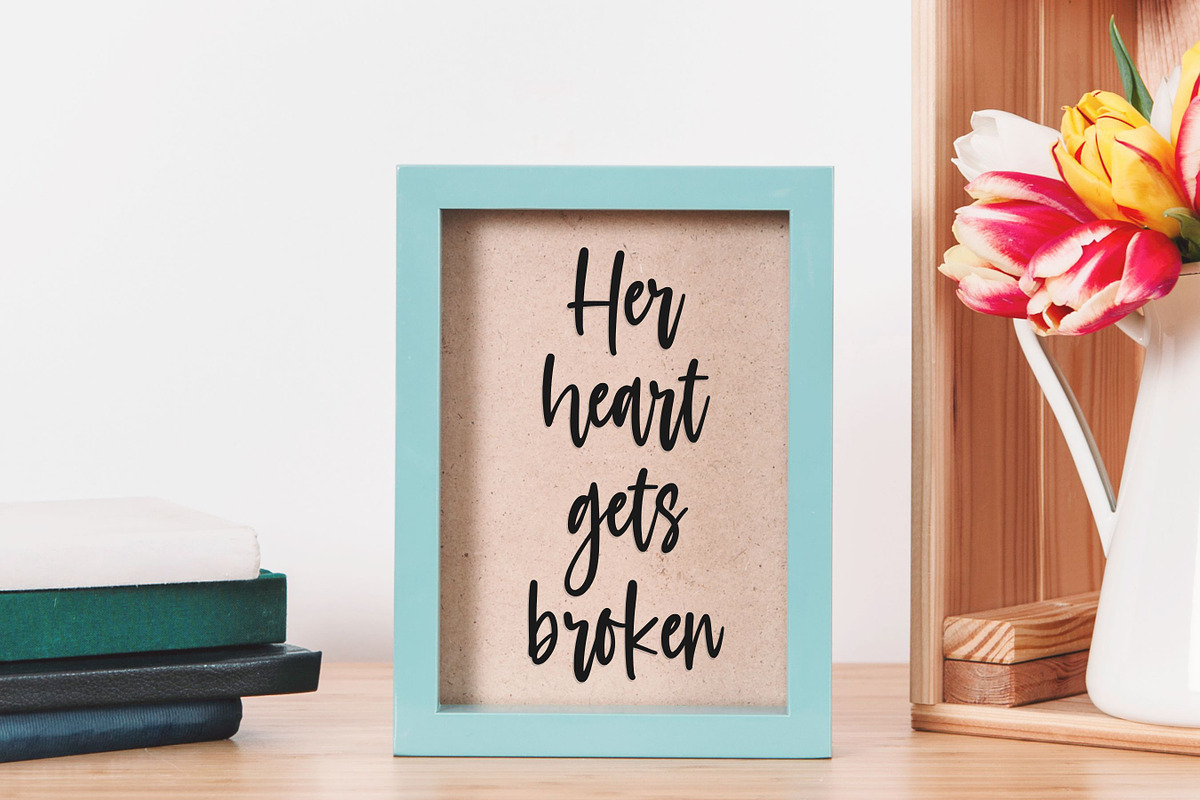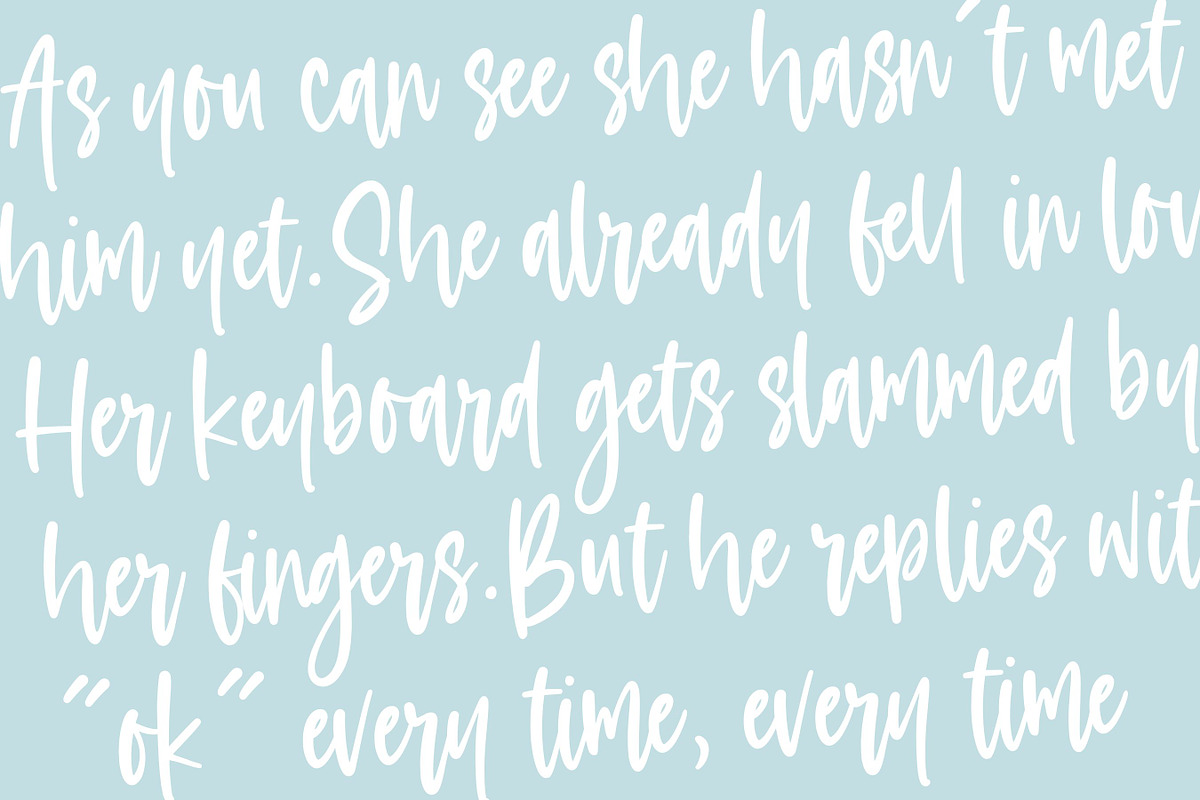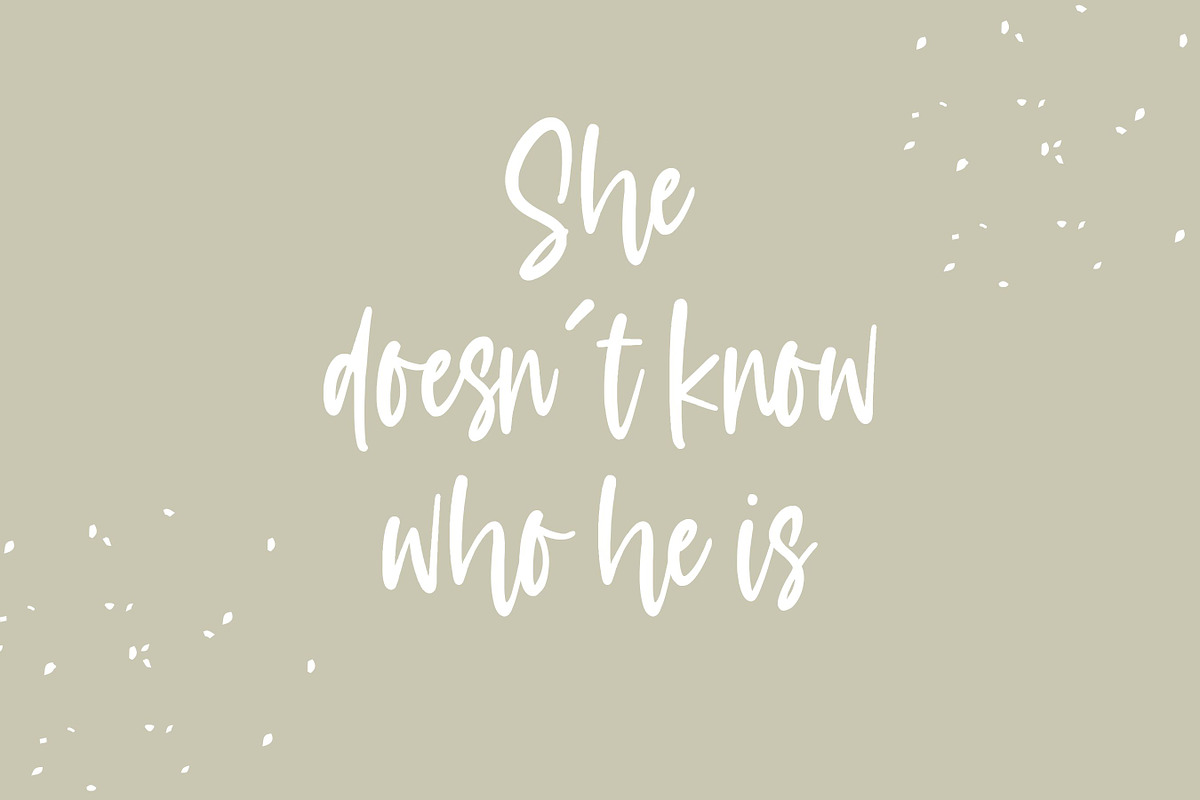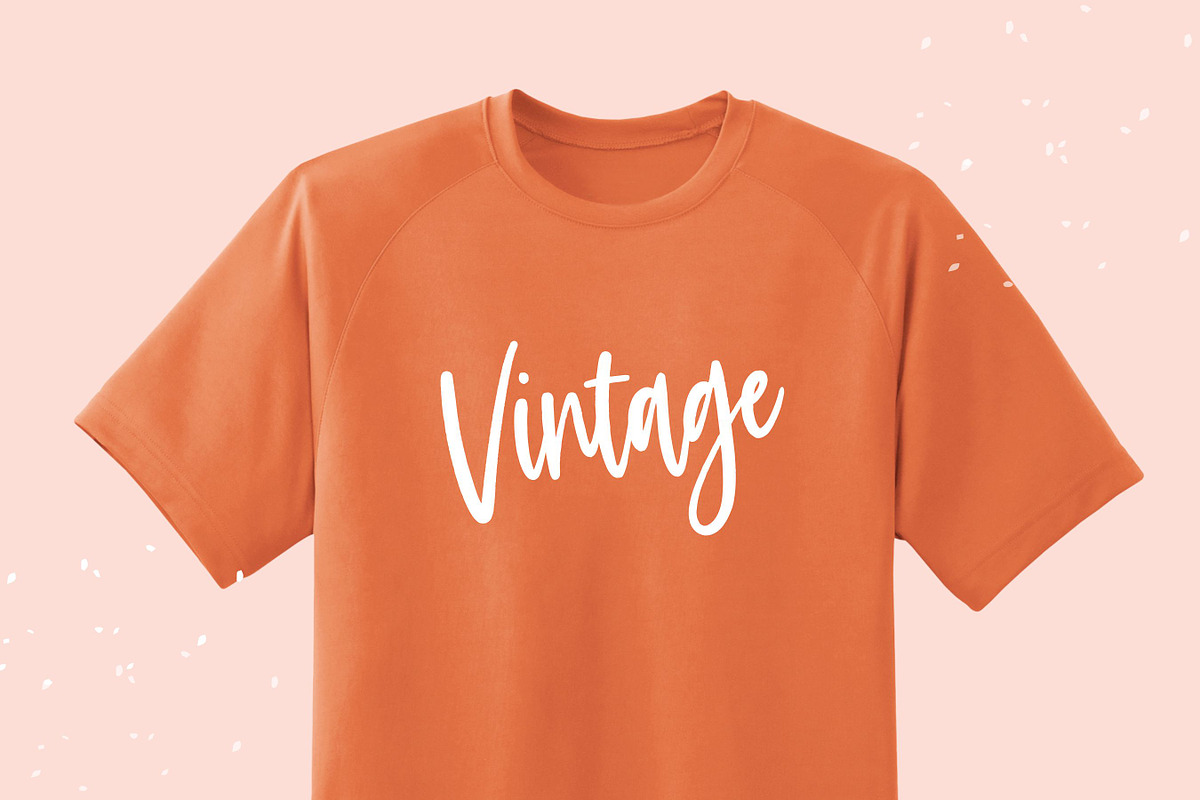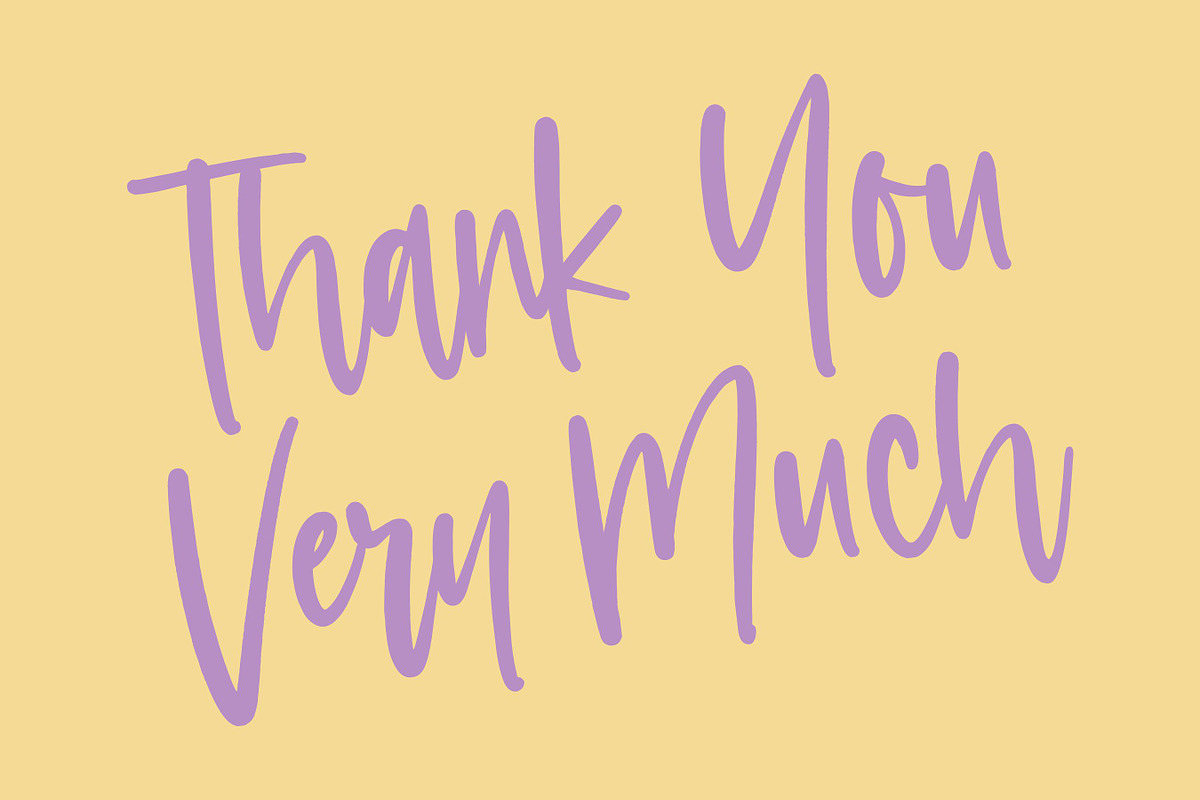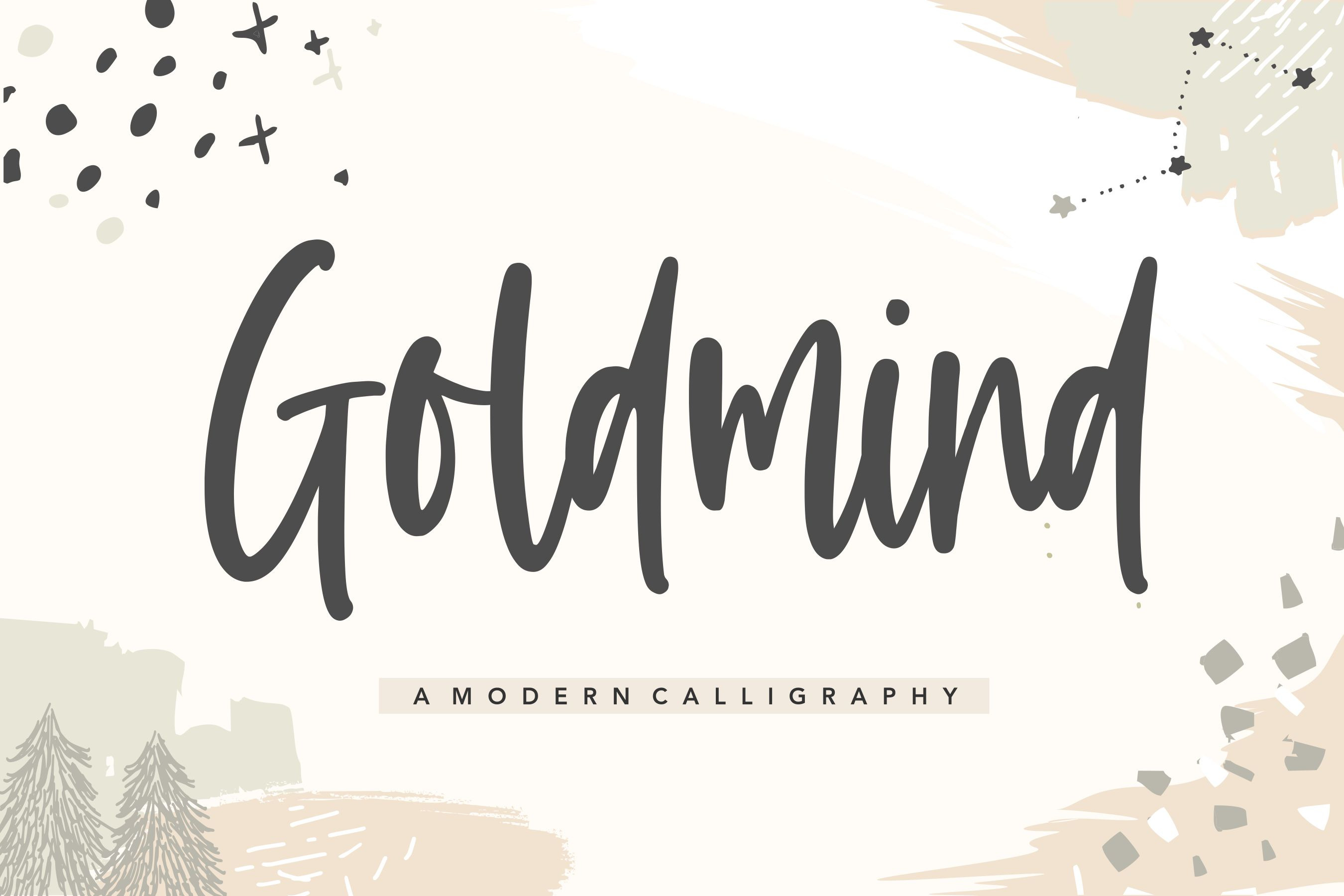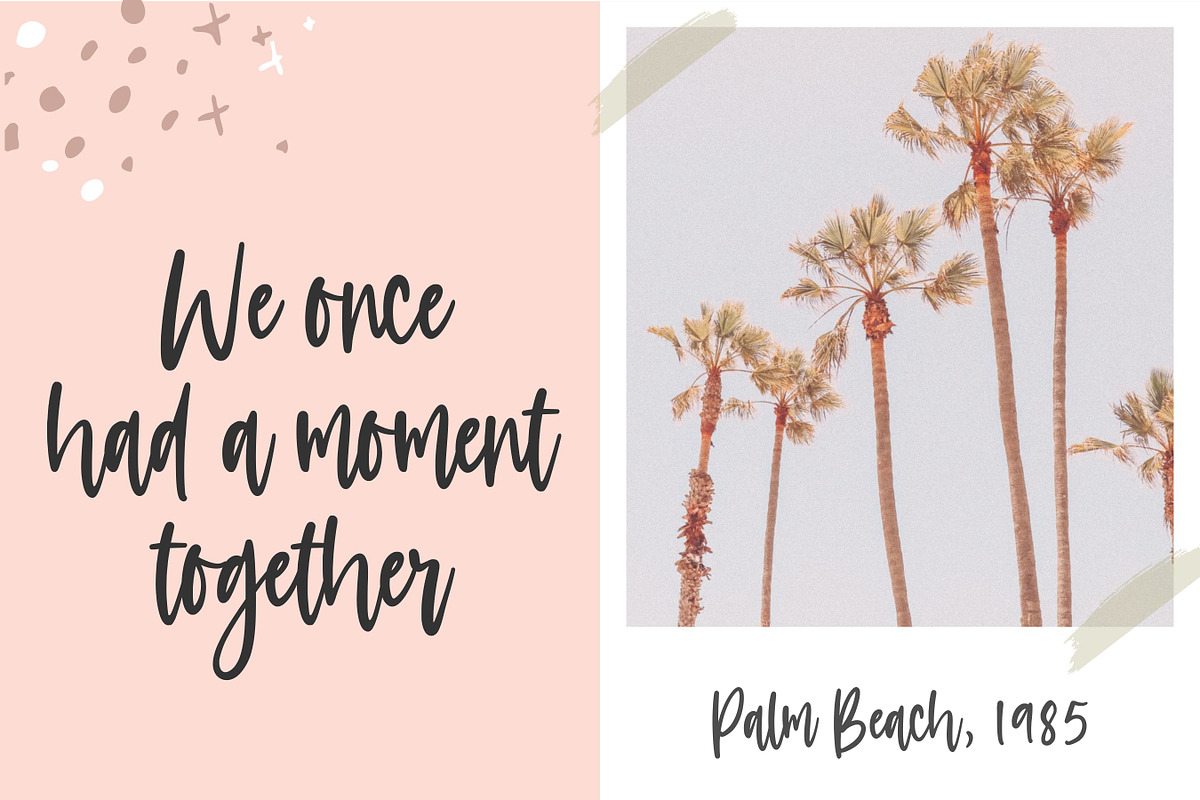
Goldmind - Modern Calligraphy Font
Proudly Present, Goldmind Font
Goldmind results out of a stunning pairing of a brush pen and pencil that makes it look incredibly endearing and authentic. Use this gorgeous and unique handwritten font to bring any DIY project to life!